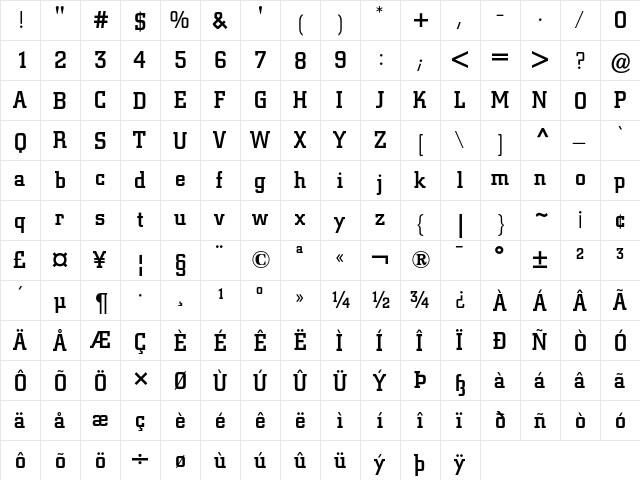
Berthold City Medium
Design Context for Berthold City Typeface
Berthold City offers clean, dependable letterforms without strong stylistic allegiance, making it a practical choice for designers who need flexibility.
Pro Tip: Use Berthold City in both headline and body roles to test its range before committing to a single application.